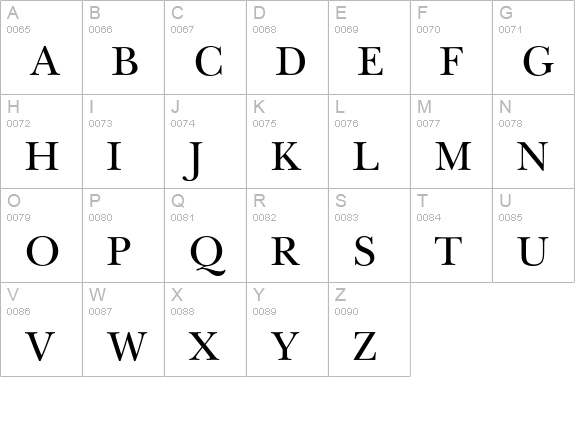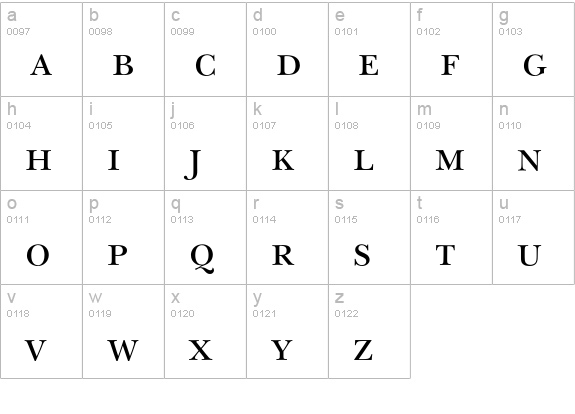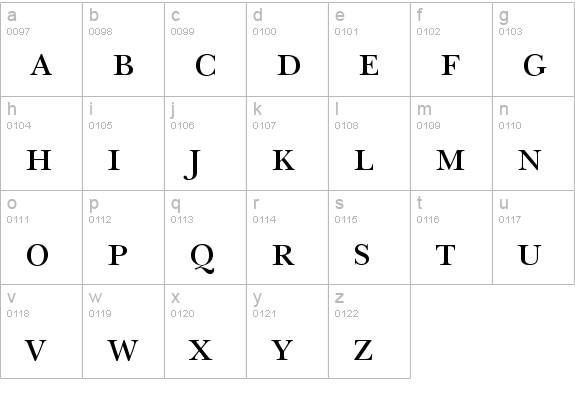
New Baskerville* Expert Roman Font Details
New Baskerville* Expert Roman font is a timeless and elegant typeface that exudes sophistication and refinement. With its classic serifs and graceful curves, this font is perfect for conveying a sense of tradition and prestige in your designs. This font is freely available to download at FontsMarket.com, making it accessible to all designers and creatives looking to add a touch of elegance to their projects. Whether you're creating invitations, branding materials, or editorial layouts, New Baskerville* Expert Roman is a versatile choice that will elevate your designs to new heights. Embrace the timeless beauty of New Baskerville* Expert Roman and bring a touch of sophistication to your next project. Download this exquisite font for free at FontsMarket.com and let its classic charm enhance your creative work.